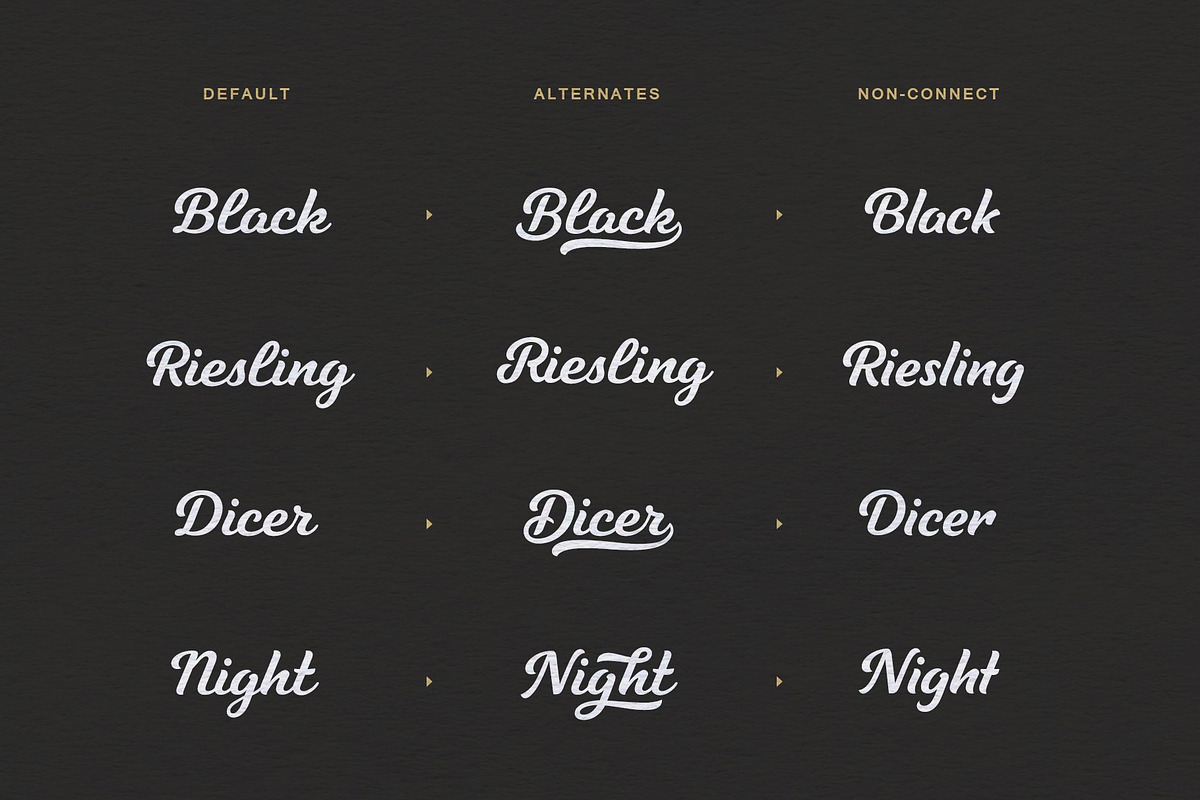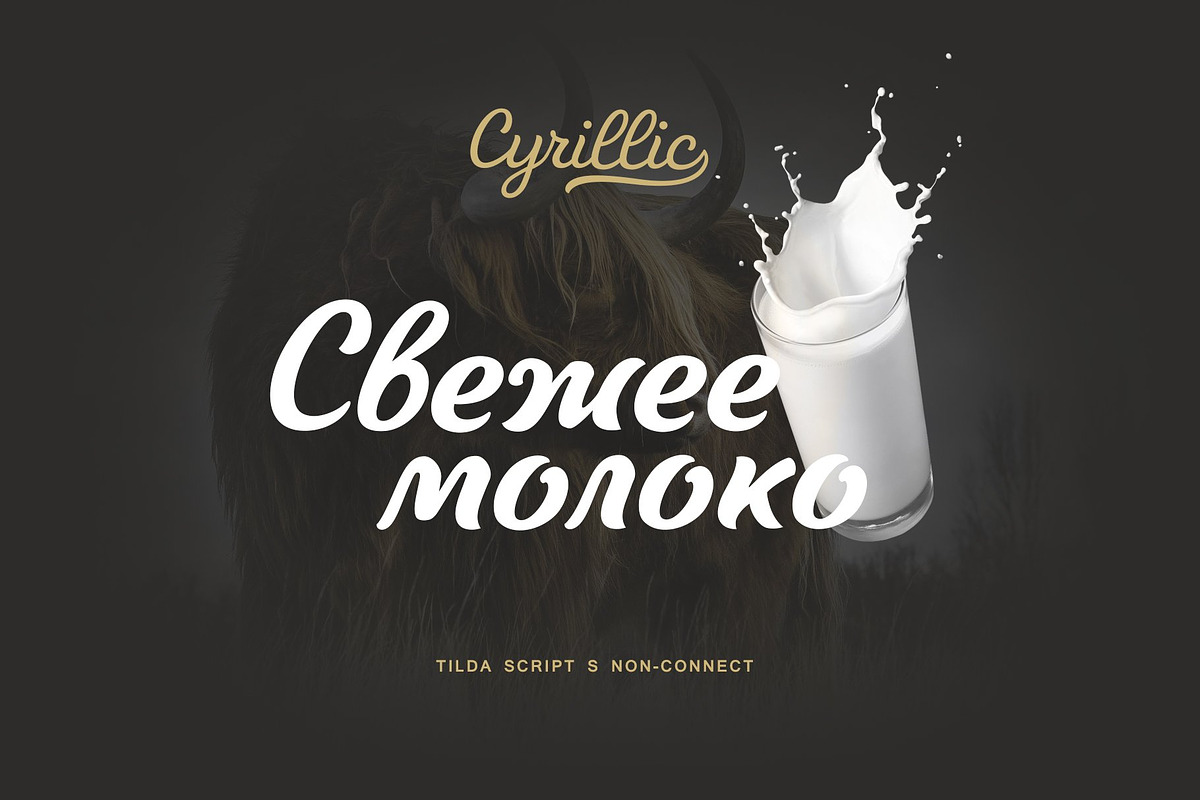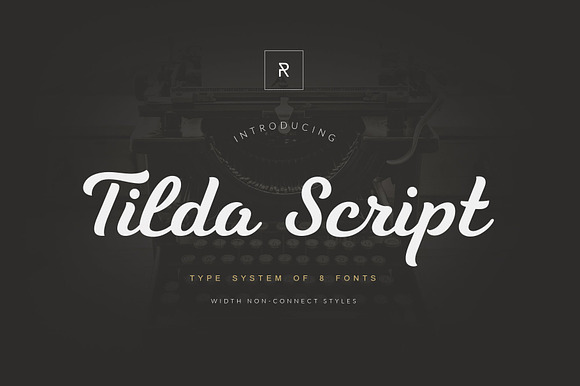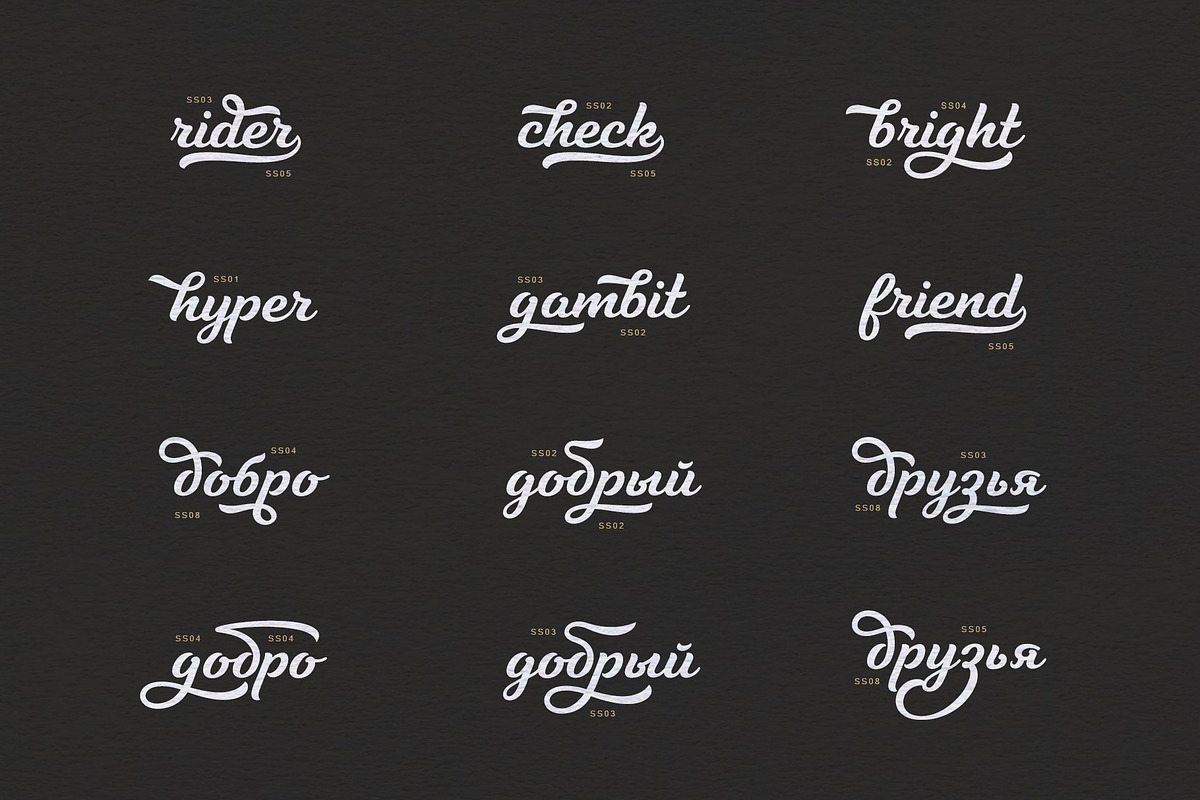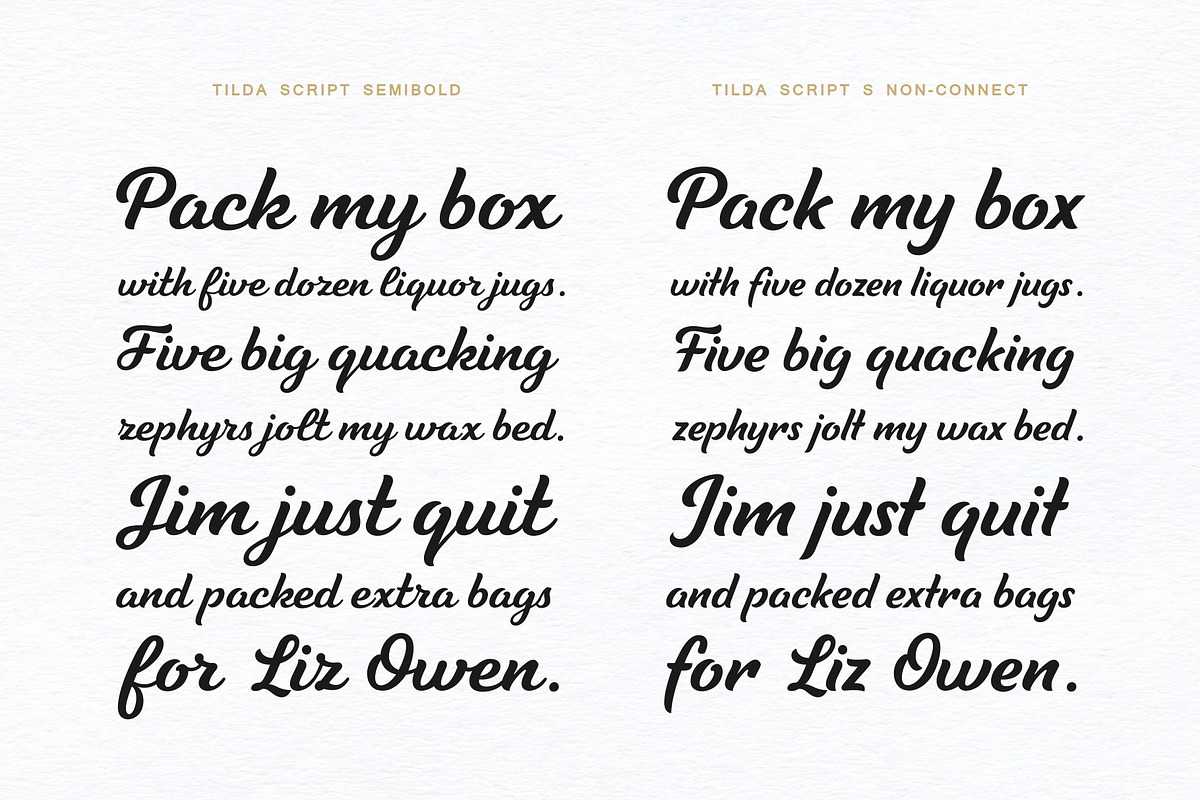
Tilda Script — stylish font family
Tilda Script Family is a clean and elegant script font with regular and non-connect versions in four weights. All fonts include Cyrillic and the main part of diacritical characters.
With this family, you can craft solid logotypes with a unique look, set posters and ads, and even run longer lines of copy on the packaging.
Tilda Script is a versatile family with extensive language support and advanced typographic features including Ligatures, Stylistic Alternates, Stylistic Sets.
- Tilda Script Light
- Tilda Script Regular
- Tilda Script Semibold
- Tilda Script Bold
- Tilda Script L Non-connect
- Tilda Script R Non-connect
- Tilda Script S Non-connect
- Tilda Script B Non-connect